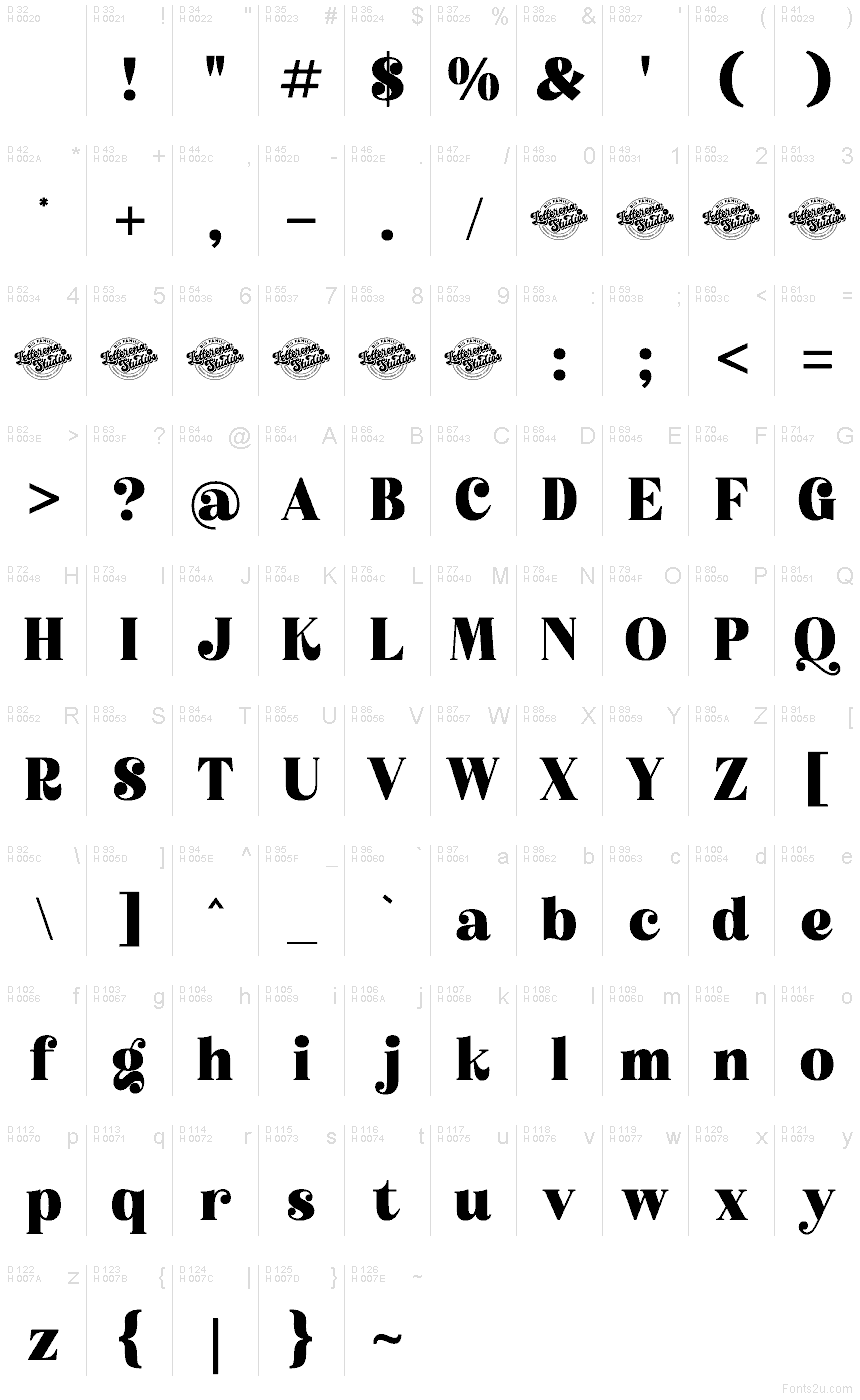
Atlantis Famingo DEMO VERSION
Atlantis Famingo font by Letterena Studios is a free decorative serif font. Its defining move is the dramatic contrast: plush, inky strokes sliced by crisp hairlines, then punctuated with soft, sculpted serifs and a playful flourish that curls like a ribbon. The result feels both glamorous and gutsy—romance with a little punch—so headlines land with presence while still reading smooth.
Using Atlantis Famingo, you’ll nail boutique logos, perfume or skincare packaging, event invitations, editorial headlines, café menus, and poster titles. The tight rhythm and bold forms command large sizes, while a touch of letterspacing keeps the glow without crowding. Pair this free font with a clean, unobtrusive sans for body copy to let the ornate shapes breathe.